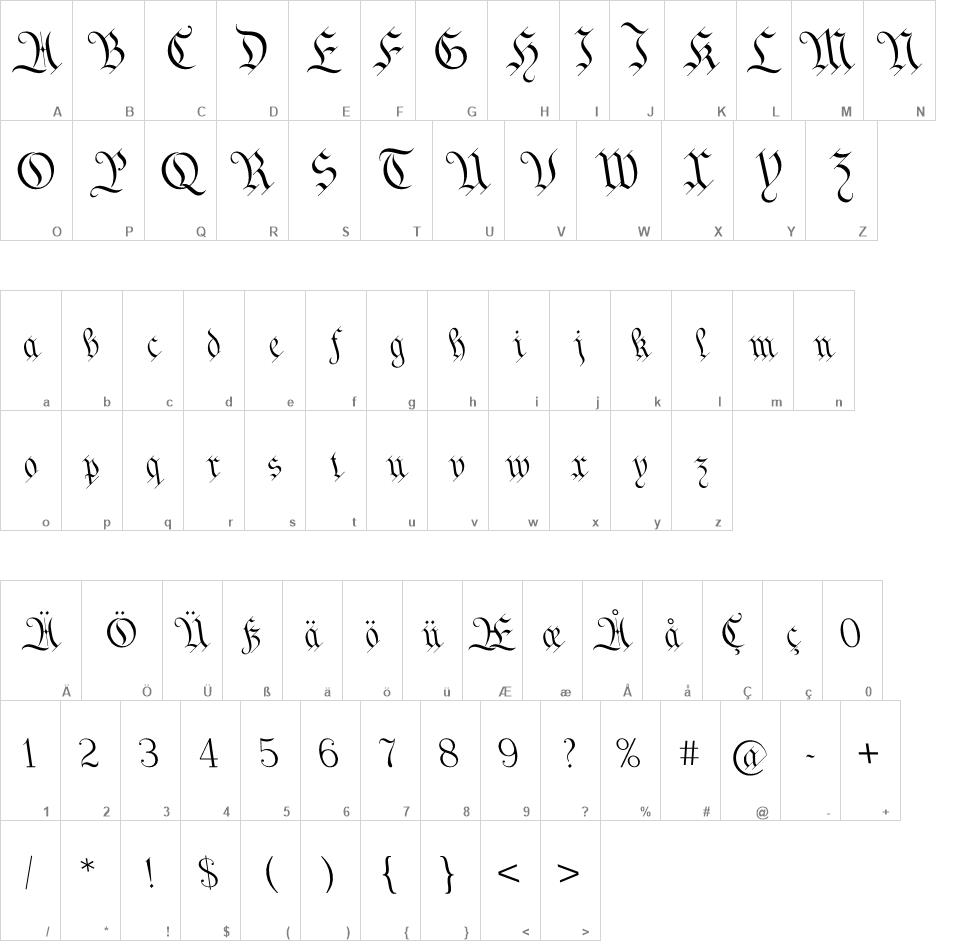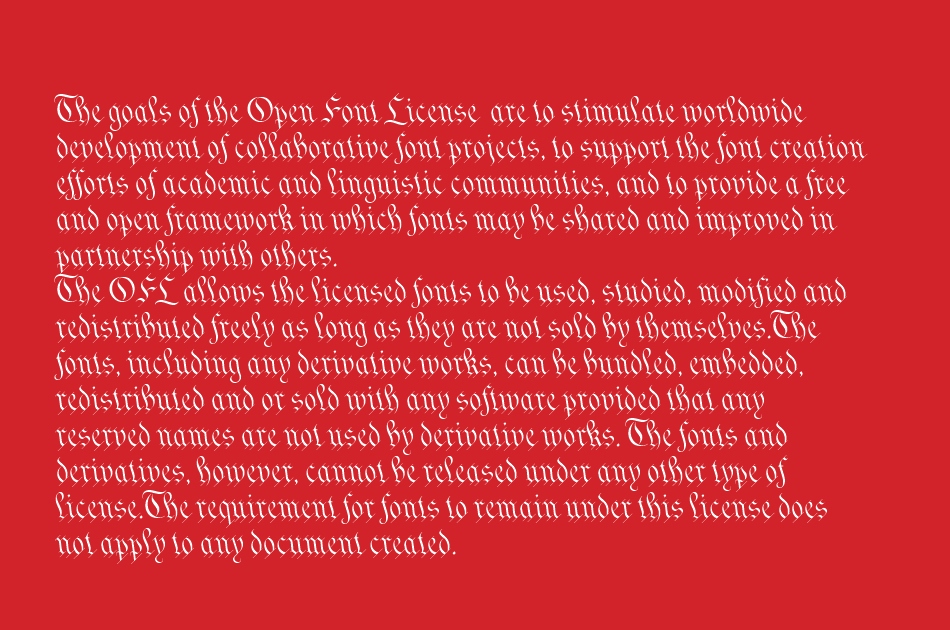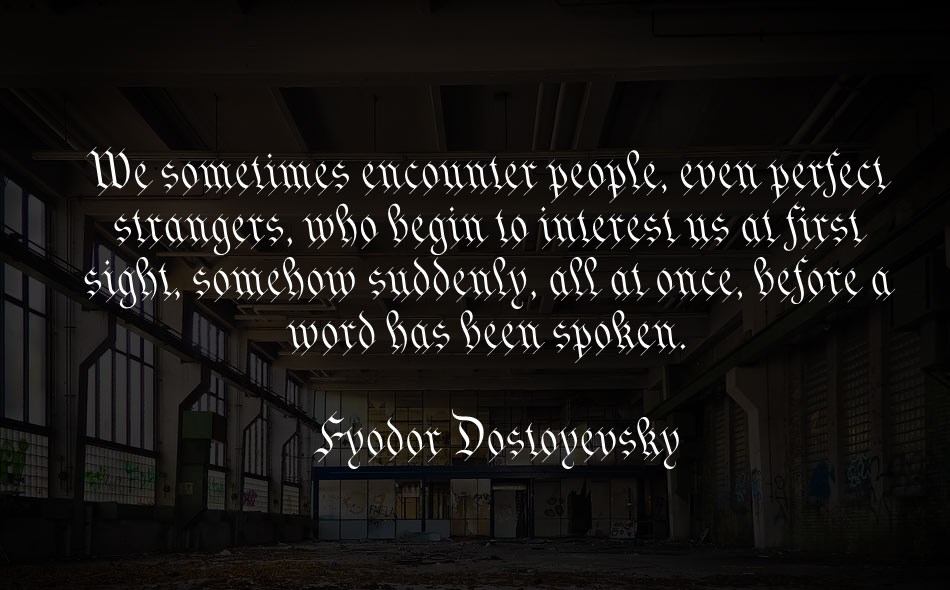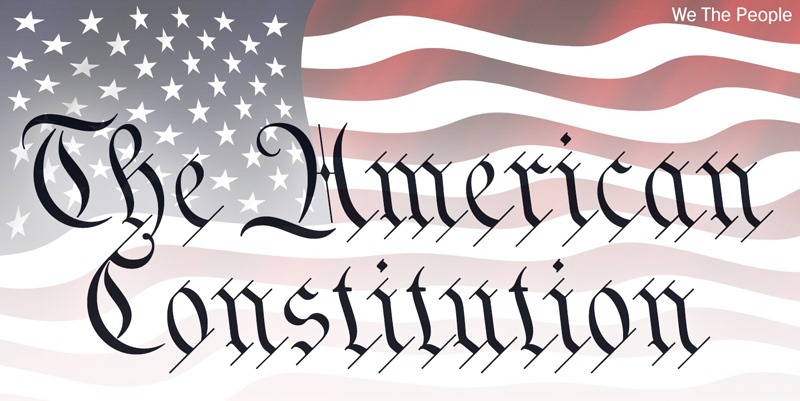
This typeface is extrapolated from the We the People calligraphy of the handwritten US Constitution Preamble which employed a style based on German Text and Square Text exemplars from George Bickhams penmanship copy-books, the most celebrated being 'The Universal Penman' published in 1743.
The original Constitution document was transcribed onto parchment by Jacob Shallus, a Pennsylvania Assistant Clerk, over a weekend in 1787. Shalluss biographer, Arthur Plotnik ('The Man Behind the Quill', 1987), notes that he was paid $30, a modest monthly wage at the time. He also suggests that the calligraphic headings, We the People and Article, may have been inserted by Shalluss 14 year old trainee son, Francis,
The manner in which the Article headings are squeezed into the space Shallus allowed for them suggests a second handand perhaps not a very experienced one.
The unconventional backslant of the headings would seem to support this contention, and at the end of the document there is perhaps a novices inconsistency in the structure of the letter n between that used for done and those used for In Witness. However, one has to admire the elegant swagger of the wavy t, h and l which the K-Type font extends to the b, f and k. Also, the simpler, Schwabacher-style W, an enlarged version of the lowercase w, is a little less flamboyant than the capital W from the German and Square texts in Bickhams manuals.
For designers using OpenType-aware applications, the typeface includes some Alternates, including a Bickham-style W, the letters t, h and n with added flourishes, two simpler forms of the A, and a few roman numerals for numbering articles. Also some ornamental flourishes and a round middle dot/decimal point. Punctuation marks are drawn in square, calligraphic style, but an alternative round period/full stop, for use with currency and numerals, is available at the period centered position (though placed on the baseline), accessed by Shift Option 9 on a Mac, or Alt 0183 on Windows. The full phrase, We the People, has been placed at the trademark keystroke and can be accessed by Shift Option 2 on a Mac, or Alt 0153 on Windows.